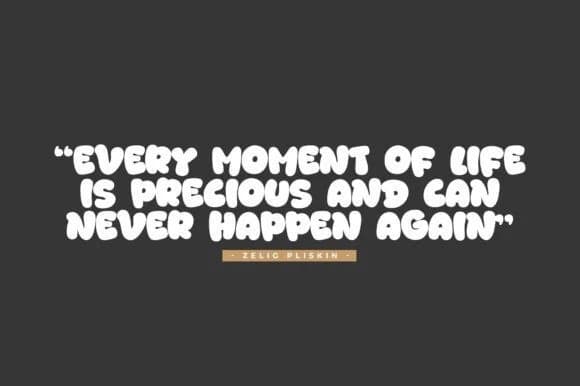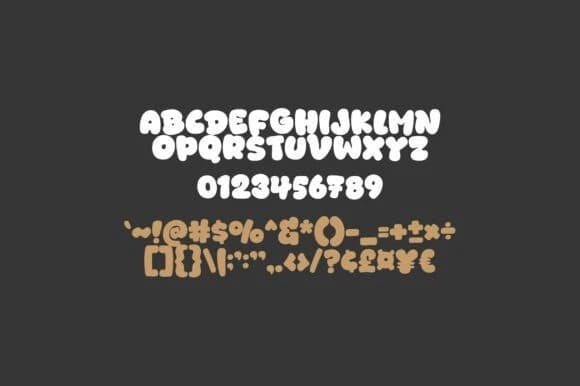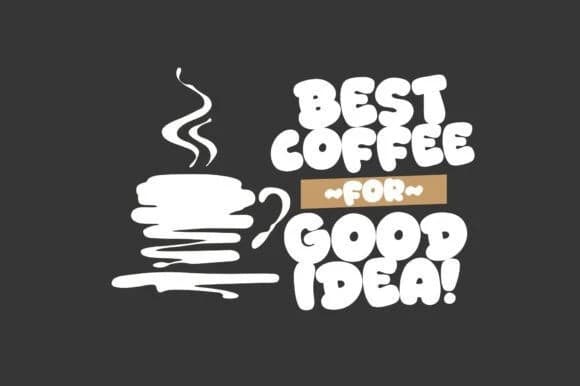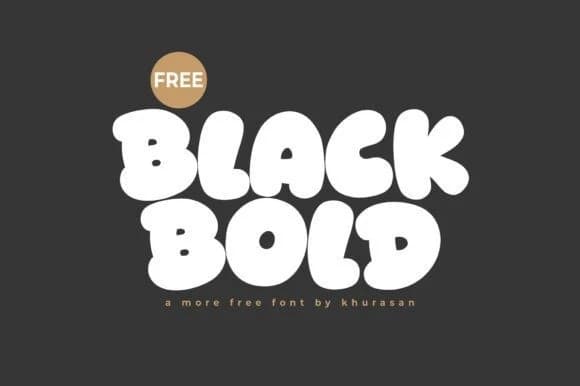
Black Bold Playful Font, a chunky bubble display font designed for maximum friendliness. This typeface features heavy, pillowy letterforms with soft, rounded corners and a tight, rhythmic spacing that makes every word feel substantial yet approachable.